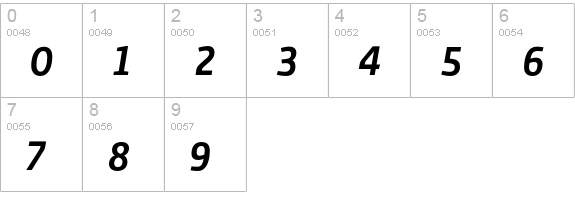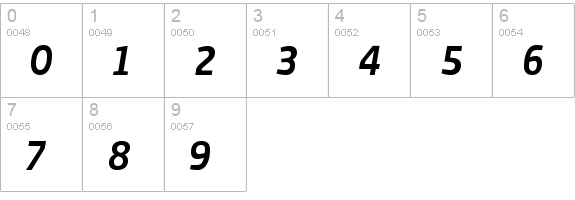
Vinkel Medium Italic Font Details
Vinkel Medium Italic is a balanced, medium-weight, italic variant in the Vinkel typeface family \xE2\x80\x94 well suited to sub-headlines, navigation, and balanced editorial work.
Vinkel Medium Italic font exudes a sense of elegance and modernity with its sleek and sophisticated design. Its slanted, italicized form adds a touch of flair to any text, making it perfect for projects that require a touch of creativity and style. The medium weight strikes a perfect balance between readability and impact, making it versatile for a wide range of design applications. But the best part? Vinkel Medium Italic font is available for free download at FontsMarket.com. This means you can elevate your projects with this stunning typeface without breaking the bank. Whether you're working on branding materials, editorial layouts, or digital designs, Vinkel Medium Italic font is sure to make a lasting impression. Download it now and unleash your creativity with this beautiful and freely accessible font.